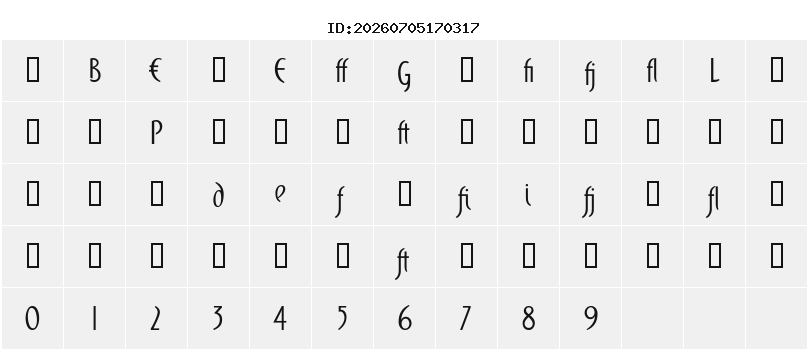
DomingoALT Preview
• Font Name: DomingoALT
• Font ID: Macromedia Fontographer 4.1.5 DomingoALT
• Full Font Name: DomingoALT
• Version: Macromedia Fontographer 4.1.5 5/5/03
• PostScript Name: DomingoALT
• Character Count: 47
About DomingoALT.ttf
DomingoALT.ttf is a modern, elegant sans-serif font designed for ultimate readability and visual harmony. Perfect for branding, headlines, web design, and print materials.